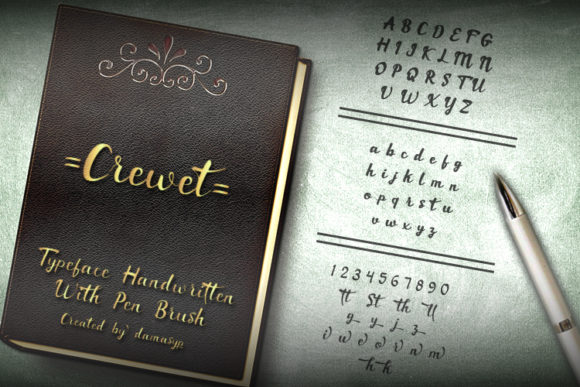
HomeScript FontsCrewet Font Script Fonts Crewet Font FacebookXPinterestWhatsApp Crewet Font Poster 2 About Crewet Font Crewet is a sweet and simple script with a unique charm. Fall in love with its bold style! DOWNLOAD ON CREATIVE FABRICAThis font is sold and delivered by Creative Fabrica. Font Canyon may earn a commission if you buy through this link. People also explored Renadar Font Mayleena Font Montine Script Font Tree Christmas Font Stacey Beauty Font Eirene Font Sweet Dino Font Hello Darling Font Multitalent Font 304 0 TagsCrewet Font Previous articleBathagor FontNext articleCatalyna Font LEAVE A REPLY Cancel reply Comment: Please enter your comment! Name:* Please enter your name here Email:* You have entered an incorrect email address! Please enter your email address here Website: Save my name, email, and website in this browser for the next time I comment. Personal Use Free Broodfath Personal Use Free Read more about this font Crack Man Personal Use Free Read more about this font Boston Traffic Personal Use Free Read more about this font Latifah Personal Use Free Read more about this font BLOG Top 10 Handwritten Fonts That Elevate Your Designs Top 10 Handwritten Fonts That Will Elevate Your Designs Handwritten fonts bring a warm, personal touch to every creative project. Whether you're designing logos, invitations,... 5 Fonts That Will Dominate Design Trends in 2026 Modern Sans-Serif Fonts That Brands Love in 2025 How to Cut Any Font on Cricut: Convert a Font to SVG (Free)